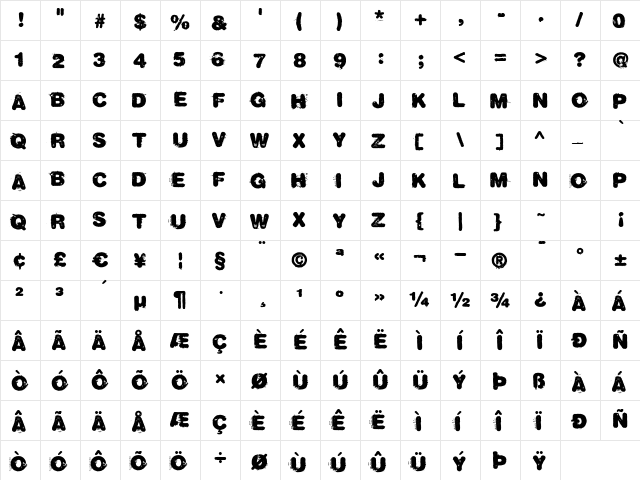
Trashold Regular
Design Context for Trashold Typeface
Trashold is a composed and adaptable typeface that performs quietly and consistently across a wide range of design contexts.